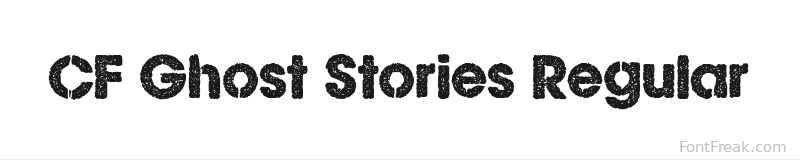
CF Ghost Stories Regular
CF Ghost Stories Regular, designed by Cloutierfontes, is a unique display font that blends a playful aesthetic with a hint of nostalgia. This font falls into the decorative category, making it an excellent choice for projects that require a whimsical touch. Its visual characteristics include a medium stroke weight with a textured appearance, giving it a handcrafted feel. The letters feature a subtle contrast, enhancing readability while maintaining an artistic flair. The spacing is well-balanced, ensuring that each character stands out without compromising the overall cohesiveness of the text.
This font is particularly well-suited for a variety of creative applications. For instance, it can be used to design charming wedding invitations that evoke a sense of warmth and personality. Additionally, CF Ghost Stories Regular is perfect for crafting eye-catching movie posters, especially for films in the fantasy or adventure genres. Restaurant menus can also benefit from this font, adding a touch of character that draws patrons in. Furthermore, content creators looking to enhance blog graphics or social media posts will find this font an attractive option to engage their audience.
The target audience for CF Ghost Stories Regular spans graphic designers, small business owners, and content creators. Each of these groups can leverage the font's unique style to elevate their projects and connect with their audiences in a memorable way.
What sets CF Ghost Stories Regular apart is its distinctive charm and versatility. This font manages to convey a sense of fun and creativity while remaining highly functional. For those seeking a unique typeface to enhance their designs, the CF Ghost Stories Regular font free download offers an excellent opportunity to add character and intrigue to any project.